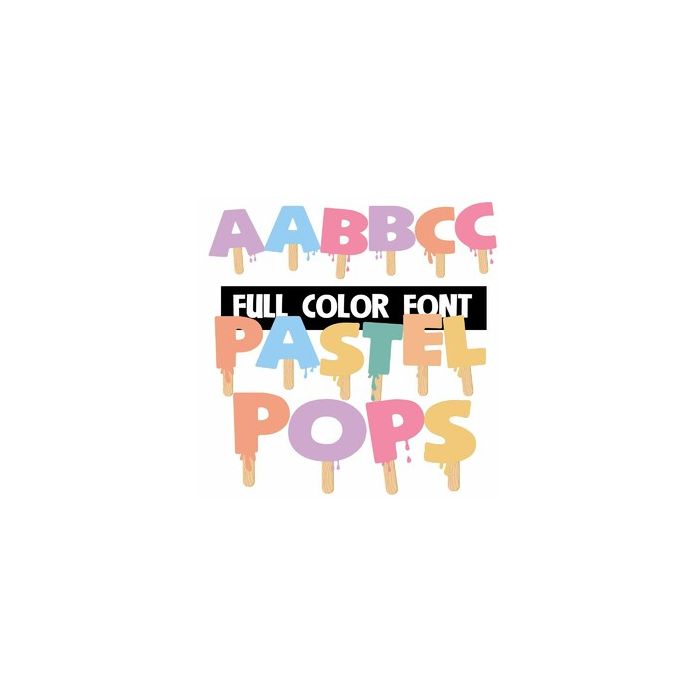
This full-color font features popsicles in a variety of pastel flavors. This font works best for titles, displays, posters and more. Please note color fonts will show as black in non compatible programs. This font type is compatible with Silhouette Studio.